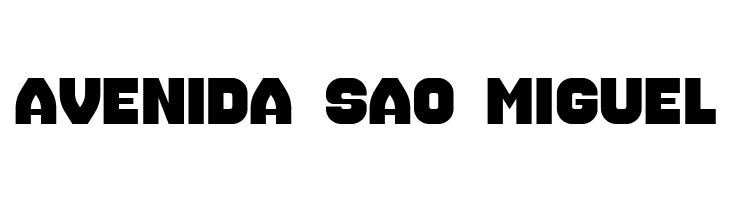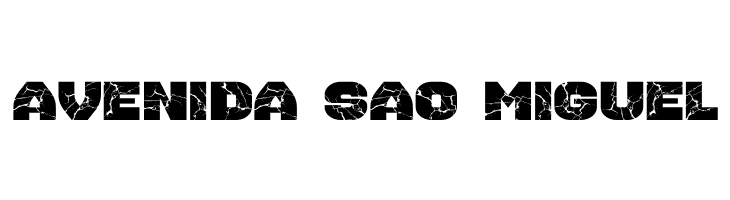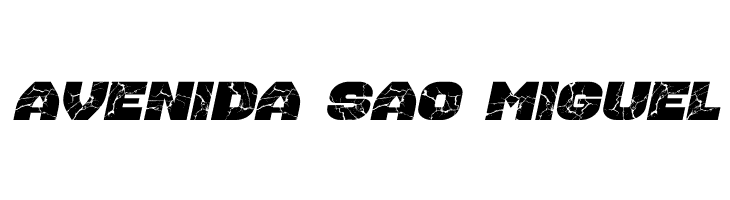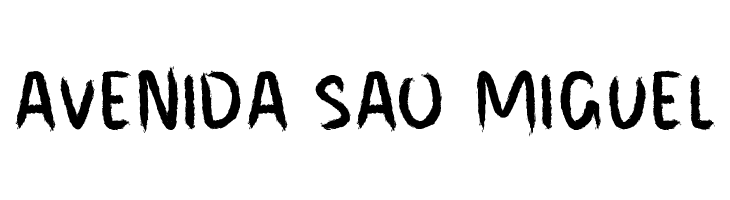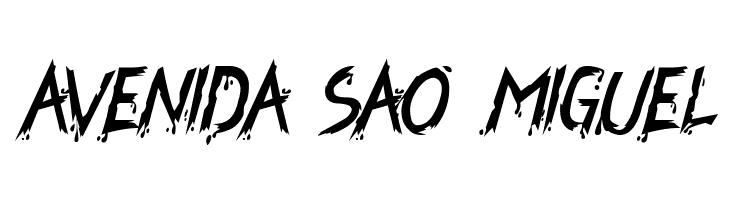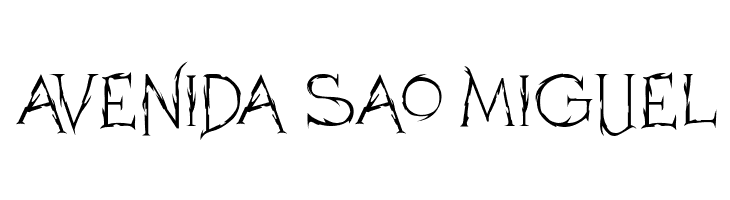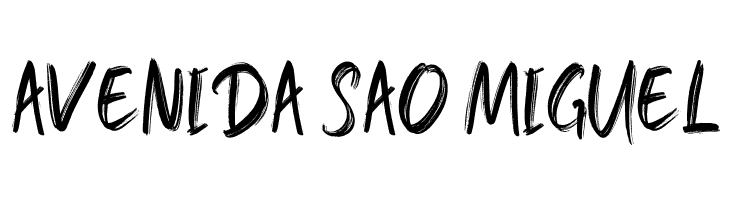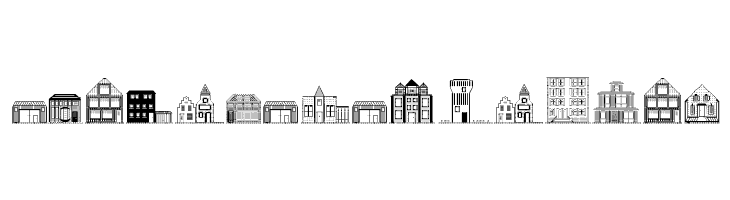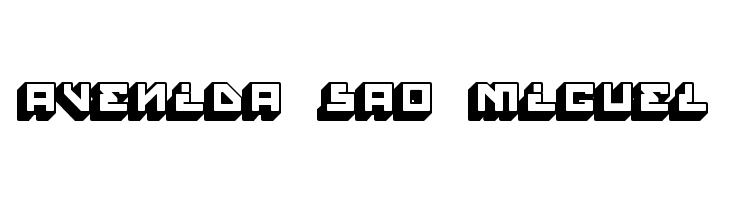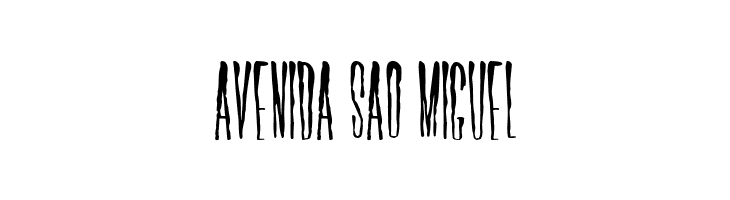
A bold, playful font with thick, rounded characters and a bubbly appearance.
A distressed, grungy font with bold, jagged uppercase letters.
A bold, handwritten font with dynamic, brush-like strokes.
A bold, edgy font with sharp, angular strokes and a distressed look.
A bold, edgy font with a distressed, grunge-like appearance.
A playful, handwritten font with irregular strokes and a casual style.
A bold serif font with strong strokes and pronounced serifs, offering a confident and elegant appearance.
An ultra-thin, elongated font with a whimsical, modern style.
A playful and quirky serif font with exaggerated serifs and unique character shapes.
A sharp, thorny font perfect for horror and gothic themes.
A spooky, elongated font with a dripping, horror-inspired design.
A bold, jagged font with an eerie, horror-inspired style.
A rugged, hand-drawn font with bold, irregular strokes and an expressive style.
A casual, handwritten font with a playful and approachable style.
A bold, brush-style font with a hand-painted, artistic appearance.
A bold, dynamic script font with a vintage, hand-painted feel.
A bold, expressive handwritten font with dynamic brush strokes.
A bold, brush script font with dynamic, cursive strokes and artistic flair.
A bold, brush-style italic font with high contrast and fluid strokes.
A playful, dotted font with a whimsical, hand-drawn style.
A whimsical, vintage-style font with bold serifs and playful character shapes.
A bold, 3D slab serif font with a shadow effect, ideal for impactful designs.
A bold, 3D slab serif font with a shadow effect for impactful designs.
A bold, grunge-style font with a distressed, cracked texture.
A bold, italicized grunge font with a rugged, distressed texture.
A bold, geometric font with a strong, modern presence.
A bold, italicized font with wide, extended characters and high contrast.
A bold, italic font with a dynamic and modern style.
A bold, geometric font with strong, blocky letterforms ideal for impactful headlines.
A decorative architectural font where each character is a unique house or building illustration.